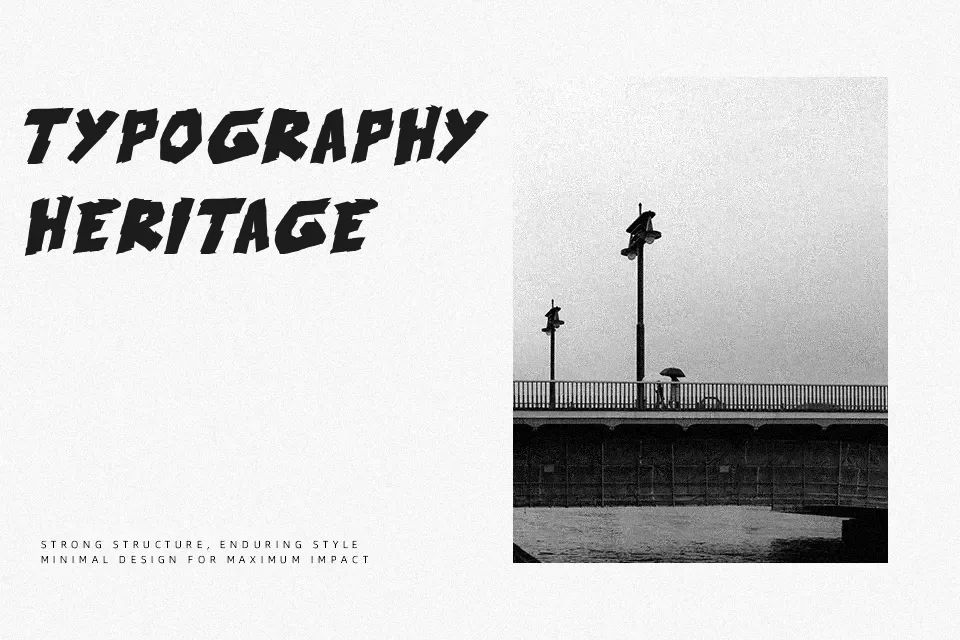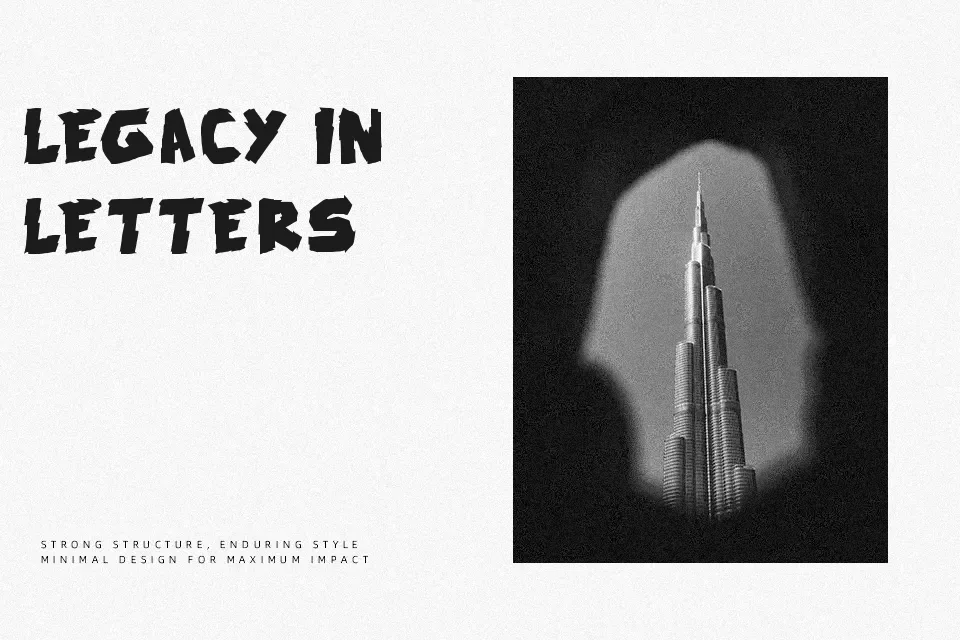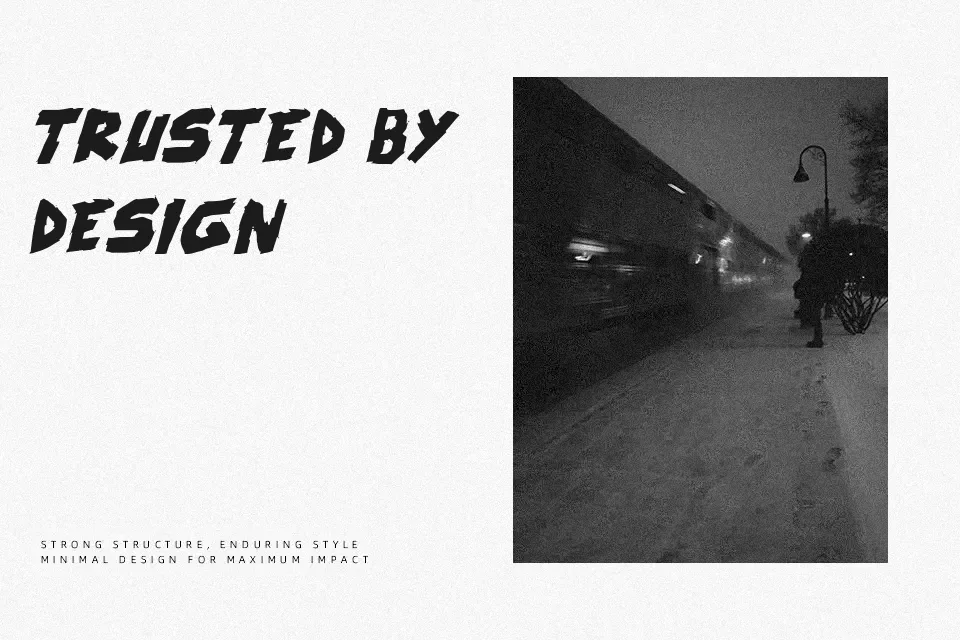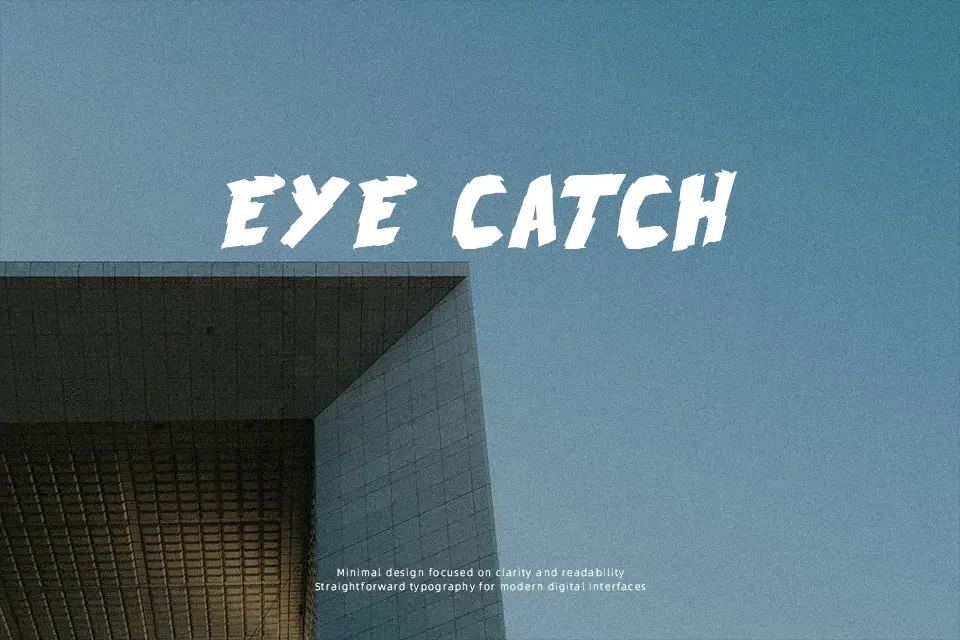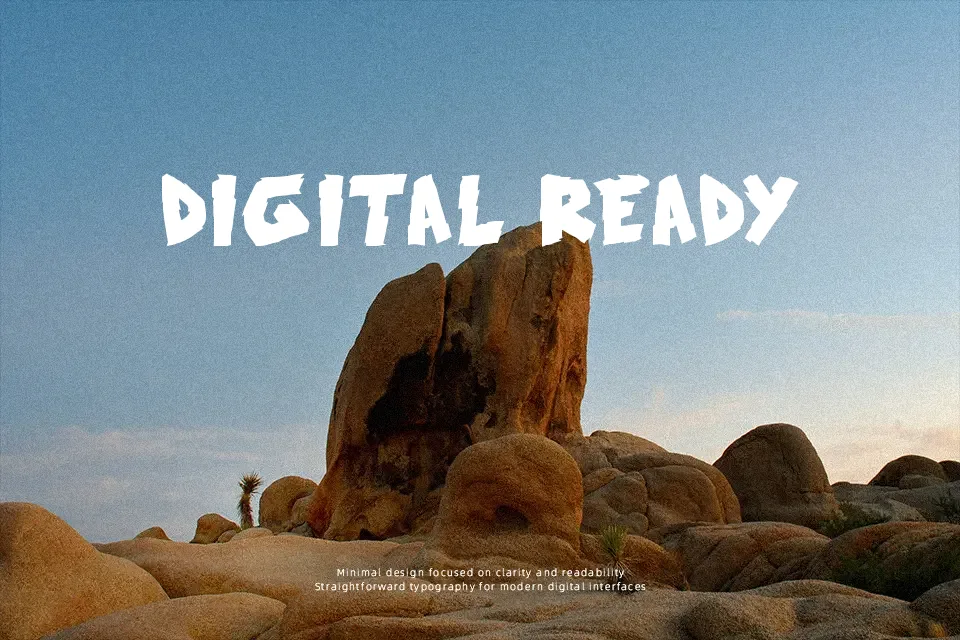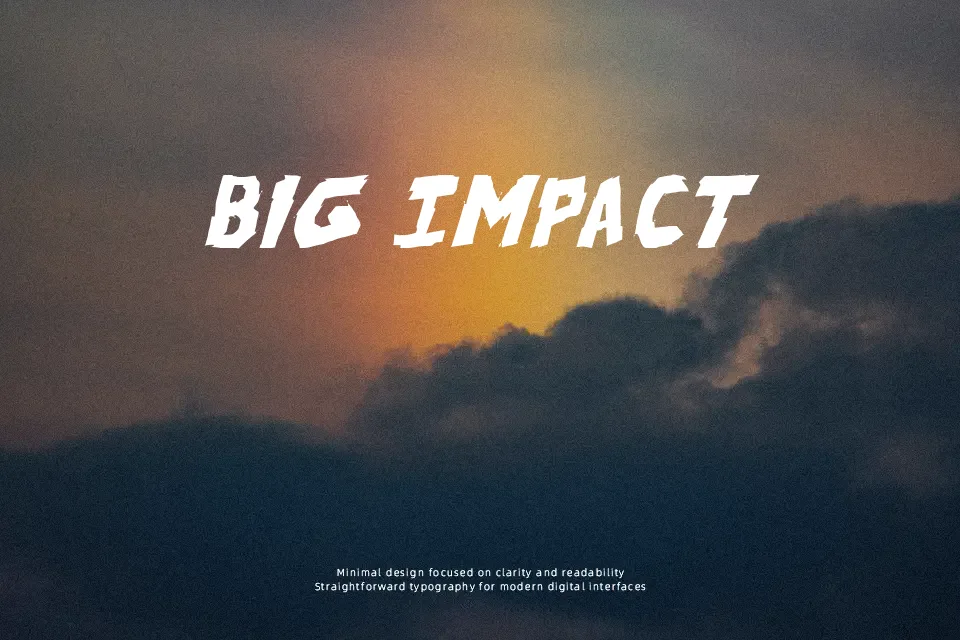
Skrunch Font
Skrunch Font works as a comic-oriented display face for loud titles, illustrated posters, and playful game-related graphics. The letterforms appear deliberately uneven and expressive, with substantial strokes, compact proportions, and a hand-drawn rhythm rather than rigid geometric consistency. Its animated shapes keep short words noticeable at larger sizes, while the dense, characterful construction can make smaller text and longer passages tiring to read. The spacing is most effective when given room in a headline or graphic composition. In practice, it is a stronger choice for a few impactful words than for information-heavy layouts.